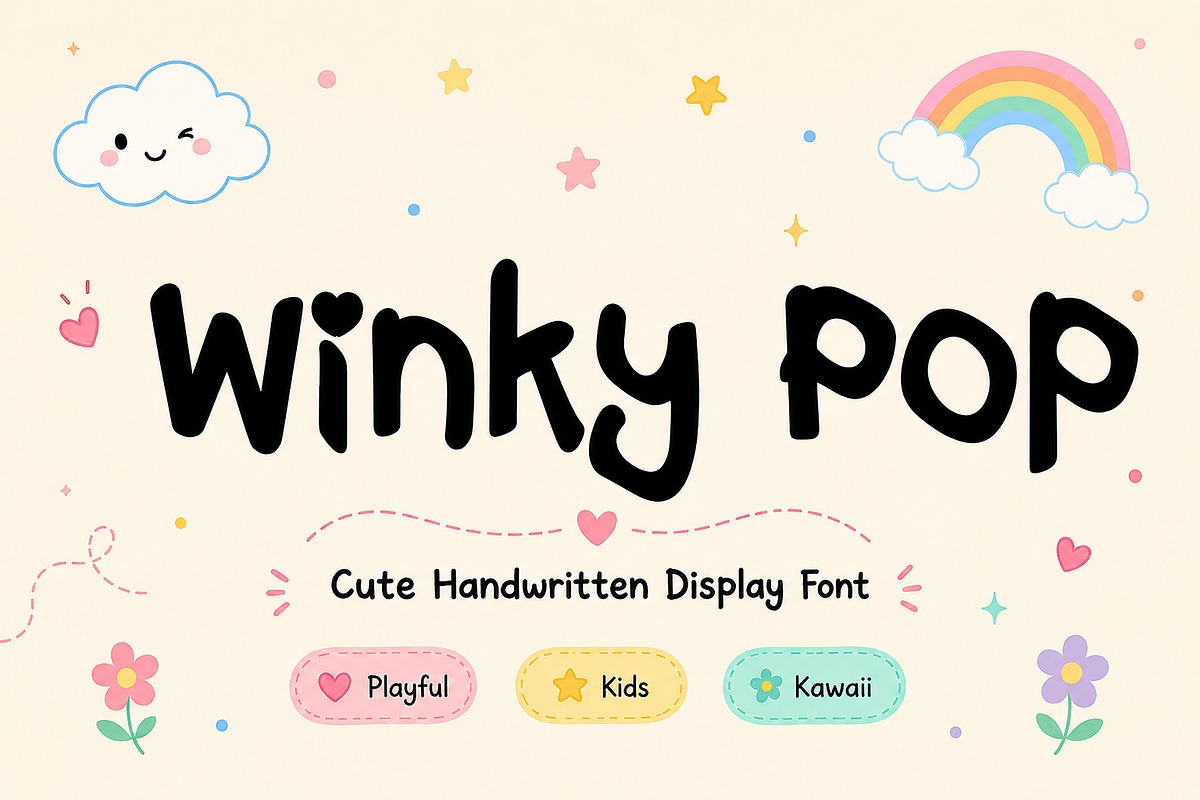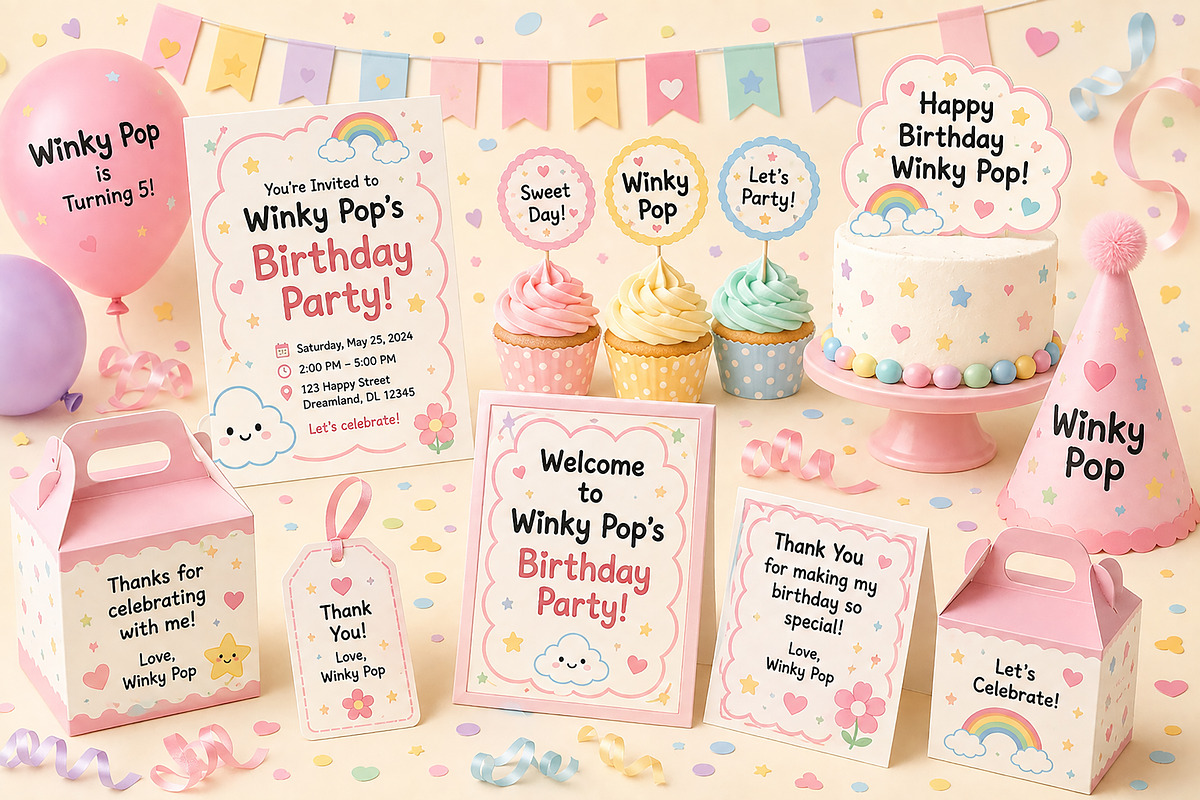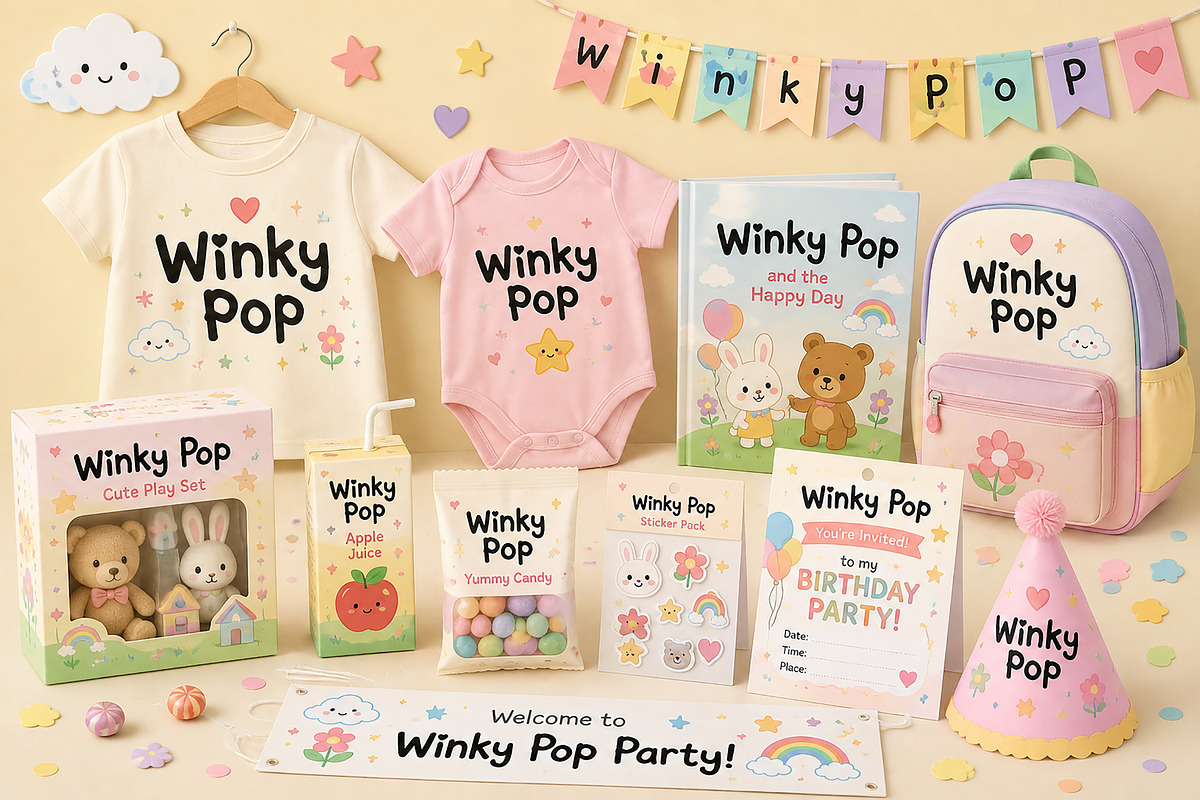
Winky Pop
Winky Pop – Cute Handwritten Display Font
Winky Pop is a cute handwritten display font filled with playful charm and friendly personality. Its rounded letterforms, soft curves, and fun handwritten style make it perfect for children's designs, birthday party projects, toy branding, school materials, stickers, packaging, and cheerful creative work.
Designed to bring warmth and happiness to every project, Winky Pop works beautifully for both print and digital designs. Whether you're creating colorful invitations, playful logos, product packaging, or social media graphics, this font adds a fun and memorable touch.
Kids Branding
Birthday Invitations
Party Decorations
Children's Books
Toy Packaging
Sticker Designs
School Projects
Greeting Cards
Nursery Decor
Baby Products
T-Shirts
Posters
Cute Merchandise
DIY Crafts
Scrapbooking
Printable Designs
Cricut & Silhouette Projects
Cute Handwritten Display Style
Playful & Friendly Letterforms
Easy to Read
Perfect for Print & Digital Projects
Great for Kids-Themed Designs
Smooth Rounded Characters